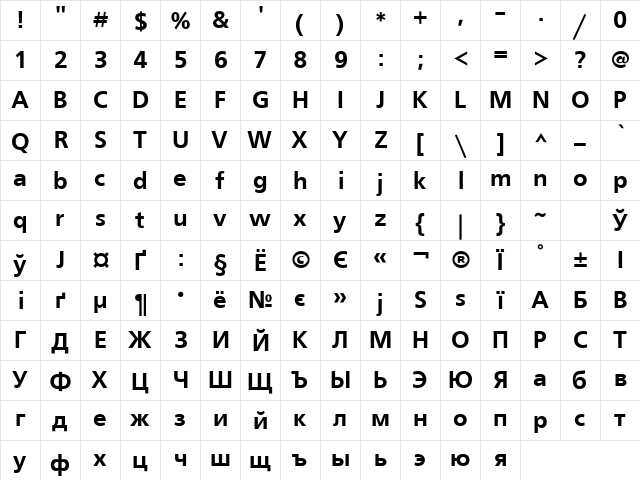
font179 Bold
Design Context for font179 Typeface
font179 offers clean, dependable letterforms without strong stylistic allegiance, making it a practical choice for designers who need flexibility. The heavy weight commands attention and anchors typographic hierarchies.